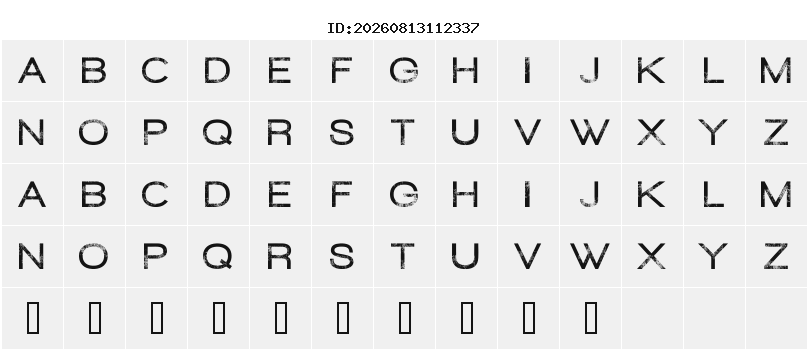
• Font Name: Redux
• Designer: Chris Vile
• Manufacturer: Fonts by GKDN
• Description: Redux Regular is a font by Fonts by GKDN, designed by Chris Vile in 2012.
About Redux.ttf
Redux.ttf is a modern, elegant sans-serif font designed for ultimate readability and visual harmony. Perfect for branding, headlines, web design, and print materials.